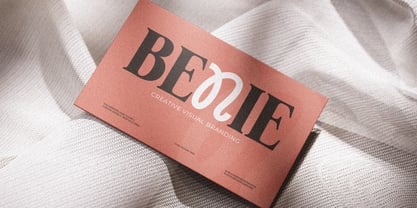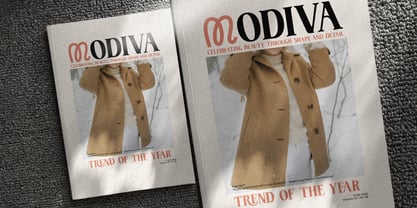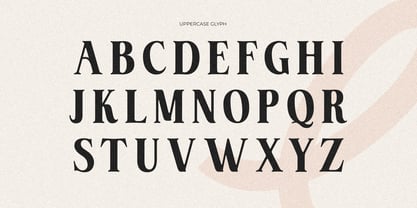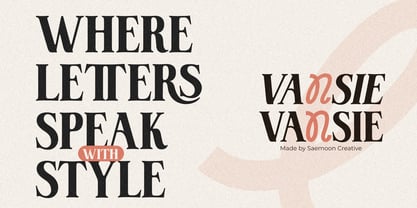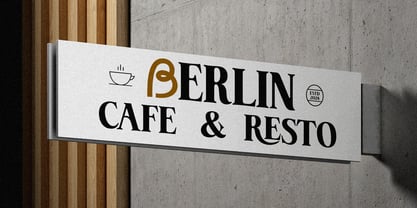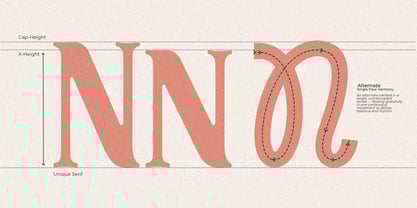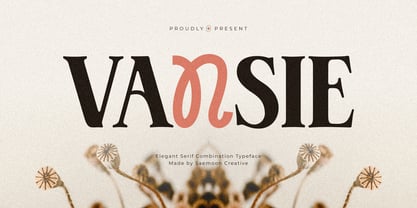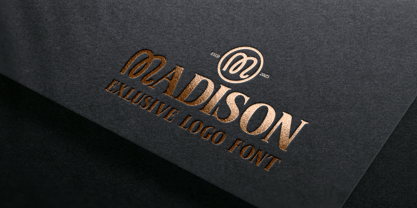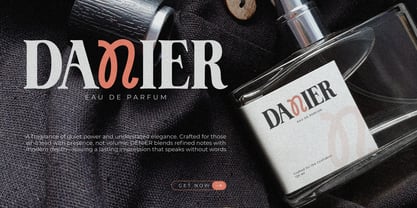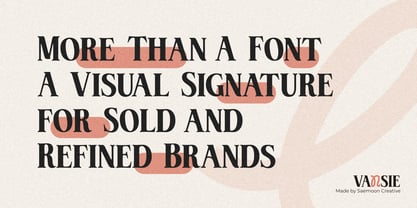
Vansie
by Saemoon Creative
The Vansie Font Family was designed by Sapto Susilo and published by Saemoon Creative. Vansie contains 2 styles and family package options.
Vansie is an elegant serif typeface with a modern twist, designed to bring sophistication and character to your creative projects. Featuring Alternate Flow Harmony, a curated set of distinctive ligatures, and available in both Regular and Italic styles, Vansie offers flexibility and uniqueness in every detail.
With its smooth flow and bold character combinations, Vansie delivers a refined and expressive look — making it a perfect choice for logos, fashion branding, packaging, editorials, magazine titles, and more.